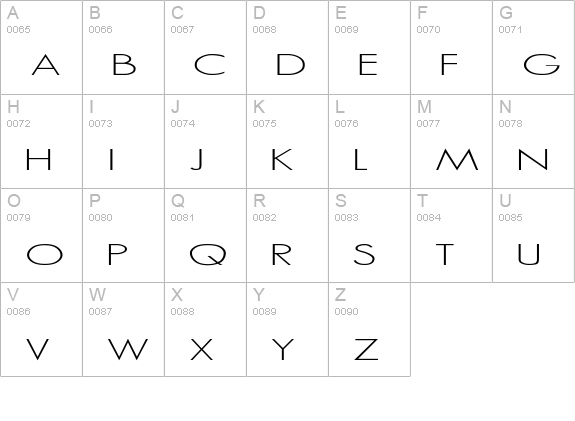
RSSansSerif Font Details
RSSansSerif is a modern and elegant font that combines sleek lines with a classic sans serif style. This versatile typeface is perfect for a wide range of design projects, from branding to editorial design. With its clean and professional look, RSSansSerif is sure to make your text stand out. Best of all, RSSansSerif is completely free to download at FontsMarket.com. Whether you're a designer looking for a new font to add to your collection or a business owner in need of a fresh look for your marketing materials, RSSansSerif is the perfect choice. Download this font today and elevate your designs with its timeless appeal.